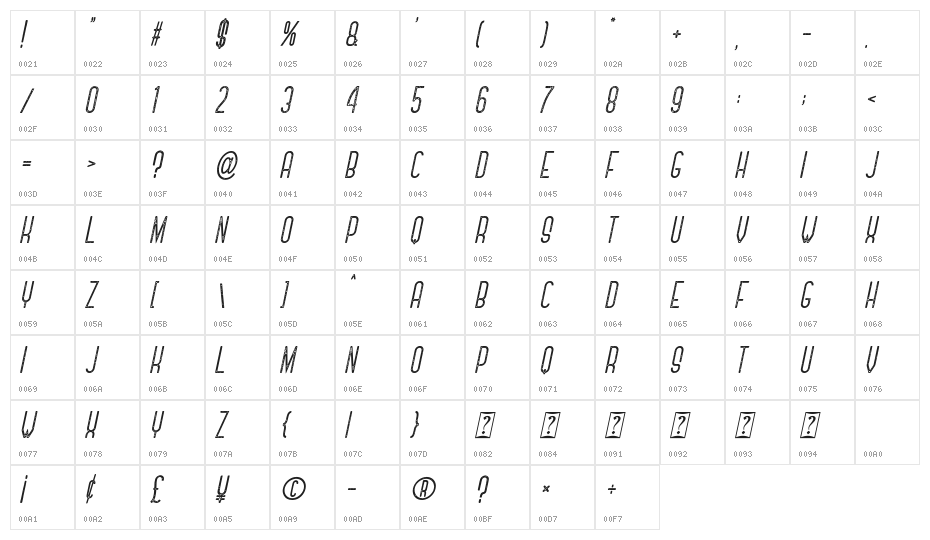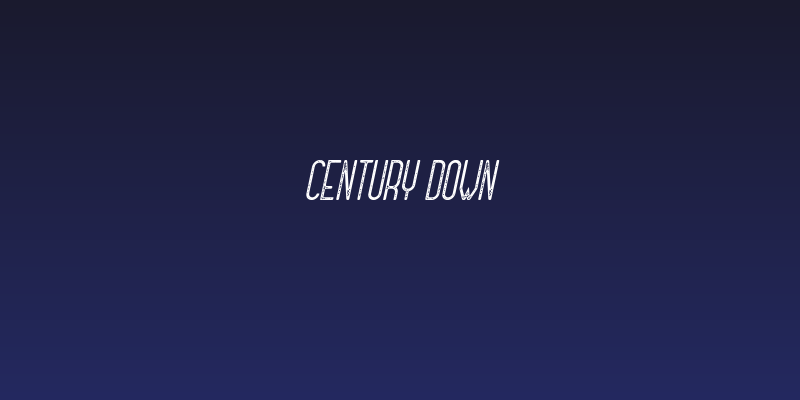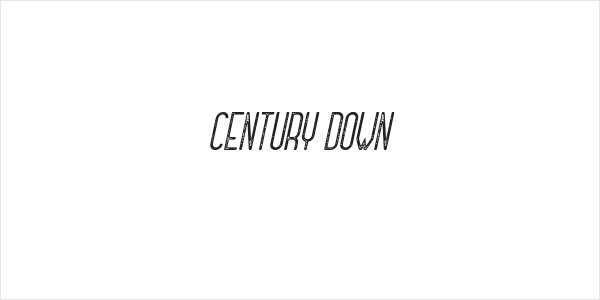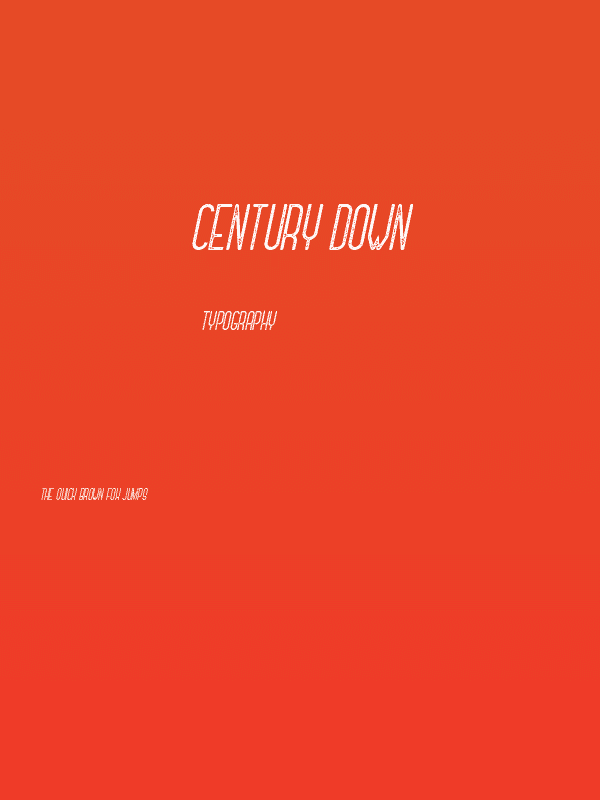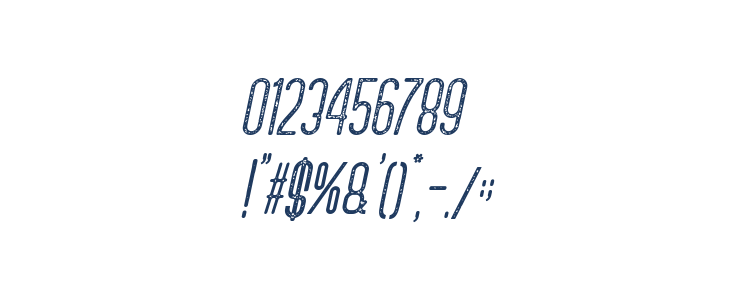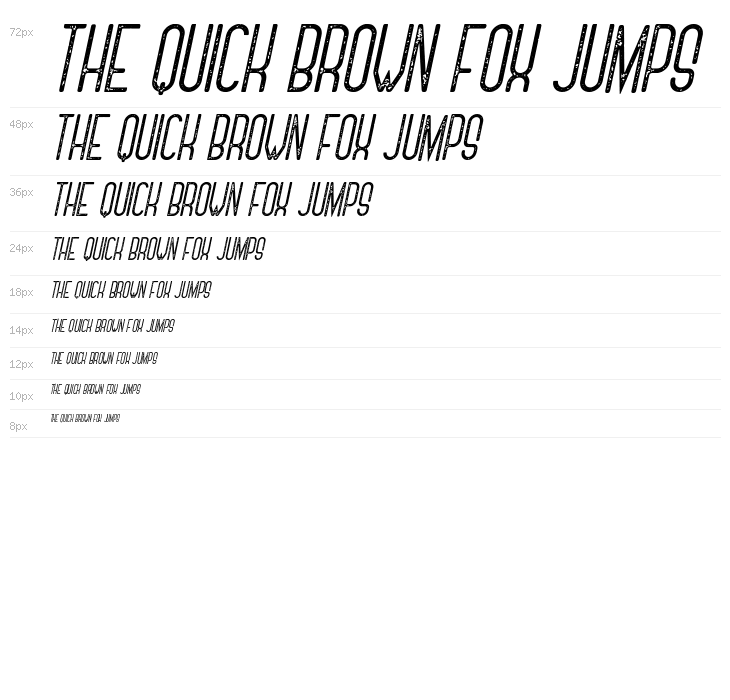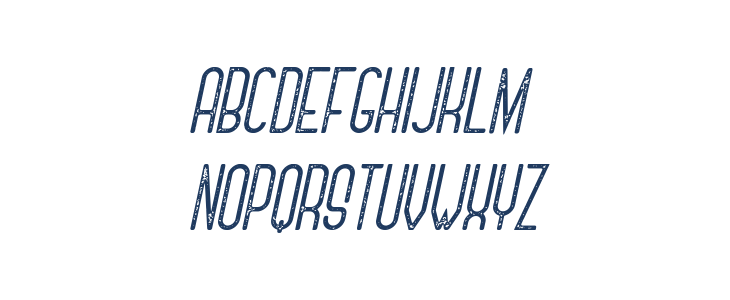
Century Down Font
Century Down Description
This font features a distinct slanted style with a textured, distressed appearance, giving it a vintage and rugged feel. The uppercase and lowercase letters maintain a consistent slant, enhancing the dynamic and energetic look. The numerals and special characters follow the same design, ensuring uniformity across all characters. The texture within each character adds depth and character, making it ideal for projects that require a bold and eye-catching typeface. The overall design is both decorative and functional, suitable for various creative applications.
| Proposed Projects | Ideal for vintage-themed posters, branding, apparel design, and creative packaging. |